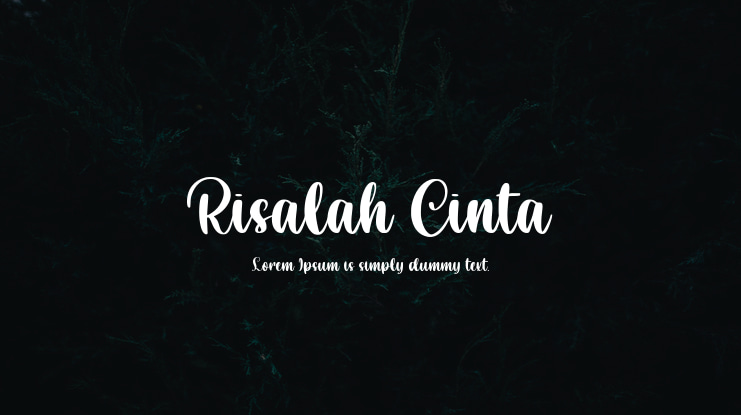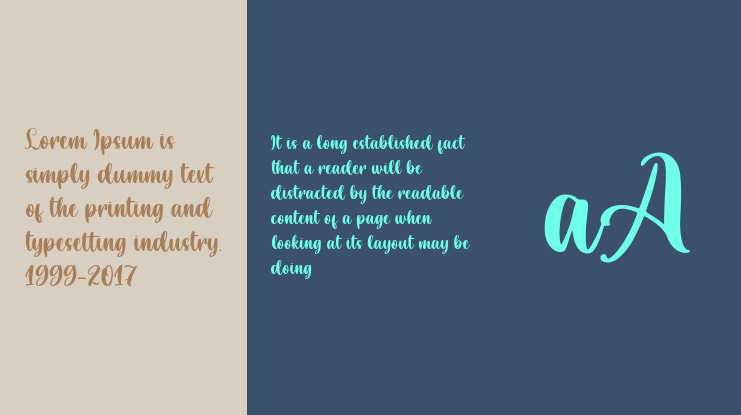
Risalah Cinta Font
RISALAH CINTA - a simple calligraphy -
Risalah Cinta is a stunning script font with additional doodles for you to enjoy. It is great for branding, packaging, quotes, wedding card, logo, signature, t-shirt designs, tote bag designs, cards, banners, social media, and anything craft project.